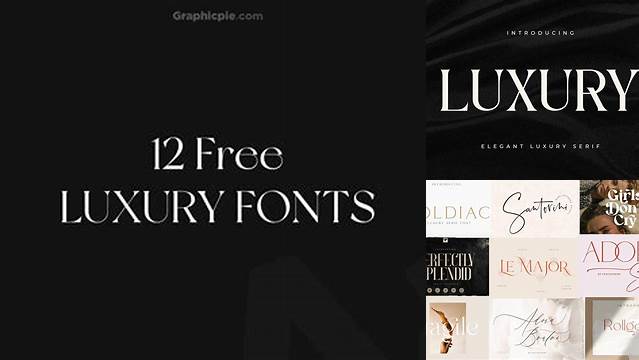
Luxury Fonts: Free Downloads To Elevate Your Brand
Are you looking to elevate your brand's image with the perfect font? Choosing the right font is crucial for luxury brands, as it significantly impacts how your brand is perceived. It's not just about aesthetics; it's about conveying the right message, evoking the desired emotions, and ensuring your brand stands out in a crowded market. The font you select becomes a visual representation of your brand's personality, values, and quality. Think of it as the voice of your brand, speaking silently but powerfully to your target audience. In this guide, we will explore the importance of font selection, delve into the characteristics of luxury fonts, and provide you with a curated list of fonts perfect for luxury brands, including options for free download. We’ll also touch on how to effectively use these fonts across your branding materials to create a cohesive and sophisticated brand identity. So, if you're ready to transform your brand's visual presence, stick around and let's dive into the world of luxury fonts!
The Importance of Font Selection for Luxury Brands
For luxury brands, every detail matters, guys. The font you choose is no exception. Think of your font as the silent ambassador of your brand. It's one of the first things customers notice, and it plays a huge role in shaping their perception of your brand's quality, sophistication, and overall identity. A well-chosen font can communicate elegance, exclusivity, and attention to detail – all hallmarks of a luxury brand. On the other hand, a poorly chosen font can undermine your brand's image, making it appear cheap, generic, or even unprofessional. Imagine a high-end fashion brand using a Comic Sans-esque font – the disconnect would be jarring, right? The font needs to align seamlessly with the overall brand aesthetic, reinforcing the message of luxury and quality. Consider brands like Chanel, which uses classic, clean fonts that reflect its timeless elegance, or Louis Vuitton, with its iconic monogram and sophisticated typography. These fonts aren't just decorative elements; they are integral to the brand's identity. When selecting a font, consider factors like readability, versatility, and its ability to evoke the desired emotions. Does it convey a sense of tradition and heritage, or does it project a more modern, avant-garde feel? The answers to these questions will guide you towards the perfect font that embodies your brand's essence. Ultimately, the right font will not only enhance your brand's visual appeal but also contribute to its long-term success and recognition.
Characteristics of Fonts Used by Luxury Brands
Luxury brand fonts often share several key characteristics. First and foremost, elegance and sophistication are paramount. These fonts typically possess a refined aesthetic, often featuring clean lines, subtle curves, and a sense of timelessness. Think classic serif fonts like Garamond or Didot, which exude a sense of history and prestige. These fonts have a long heritage in the world of print and design, making them a natural choice for brands seeking to convey a sense of tradition and heritage. Secondly, legibility is crucial. While a font might be visually stunning, it needs to be easily readable across various applications, from website headers to print advertisements. A font that is too ornate or stylized can become difficult to decipher, especially in smaller sizes, which can detract from the overall user experience. Luxury brands prioritize clarity and readability to ensure their message is communicated effectively. Thirdly, versatility is another important consideration. A font that works well in a large headline might not be suitable for body text. Luxury brands often require a font family that includes a range of weights and styles, allowing them to maintain consistency across all their branding materials. This versatility ensures that the brand's visual identity remains cohesive, whether it's on a website, in a brochure, or on product packaging. In addition to these practical considerations, luxury brand fonts often have a unique character that sets them apart. This might be a subtle quirk in the letterforms, a particular weight or style, or a historical association with a certain era or design movement. Ultimately, the fonts chosen by luxury brands are more than just decorative elements; they are carefully selected to communicate the brand's values, personality, and commitment to quality. By understanding these key characteristics, you can begin to identify fonts that align with your brand's vision and create a visual identity that resonates with your target audience.
Free Font Options for Luxury Brands
Finding the perfect font for your luxury brand doesn't necessarily mean breaking the bank. There are several fantastic free font options available that can convey the same level of sophistication and elegance as their premium counterparts. One excellent resource is Google Fonts, which offers a vast library of high-quality fonts that are free for commercial use. Among the gems you can find there are fonts like Playfair Display, a classic serif with elegant letterforms that is perfect for headlines and branding materials, and Montserrat, a clean and modern sans-serif that exudes sophistication and works well for body text and logos. Another great option is Bebas Neue, a sleek and modern sans-serif that’s ideal for creating a strong, contemporary look. Font Squirrel is another valuable resource, offering a curated selection of free fonts that are licensed for commercial use. Here, you can discover unique and stylish fonts that will add a touch of luxury to your brand. Dafont is another popular website where you can find thousands of fonts, but be sure to check the licensing carefully, as some fonts are only free for personal use. When exploring free font options, it’s important to consider the font's readability, versatility, and overall aesthetic. Look for fonts that have a range of weights and styles, ensuring you can use them across various applications. Also, pay attention to the font's character and how it aligns with your brand's personality. While free fonts can be a great option, it's essential to ensure they are of high quality and suitable for your brand's needs. Don't be afraid to experiment with different fonts and combinations until you find the perfect match that elevates your brand's visual identity without exceeding your budget. Remember, the goal is to create a cohesive and sophisticated look that resonates with your target audience.
Curated List of Fonts for Luxury Brands
Let's dive into a curated list of fonts that are perfect for luxury brands. We'll explore both premium and free options, giving you a range of choices to consider for your branding needs.
- Garamond: A classic serif font known for its elegance and readability. Garamond exudes a sense of history and sophistication, making it ideal for brands seeking a timeless aesthetic.
- Didot: Another classic serif, Didot is characterized by its high contrast and delicate serifs. It’s a favorite among fashion brands and publications for its refined and stylish appearance.
- Playfair Display: A free option from Google Fonts, Playfair Display is an elegant serif with a touch of modernity. It’s perfect for headlines and titles, adding a touch of luxury to any design.
- Bodoni: This serif font is known for its strong contrast and dramatic flair. Bodoni is a great choice for brands that want to make a bold statement while maintaining a sense of elegance.
- Helvetica: A timeless and versatile sans-serif font, Helvetica is known for its clean lines and readability. It’s a great choice for brands seeking a modern and minimalist aesthetic.
- Futura: Another classic sans-serif, Futura has a geometric design that gives it a sleek and modern look. It’s perfect for brands that want to convey a sense of innovation and forward-thinking.
- Montserrat: A free Google Font, Montserrat is a clean and contemporary sans-serif that exudes sophistication. It’s versatile enough to be used for both headlines and body text.
- Avenir: This sans-serif font has a humanist touch, making it feel both modern and approachable. Avenir is a great choice for brands that want to convey a sense of warmth and sophistication.
Script Fonts
- Great Vibes: A beautiful script font that adds a touch of elegance and romance to any design. Great Vibes is perfect for invitations, logos, and other branding materials.
- Allura: Another elegant script font, Allura has a flowing and graceful design. It’s ideal for brands that want to convey a sense of luxury and sophistication.
When selecting fonts for your luxury brand, consider how they will work together. It’s often best to pair a serif font with a sans-serif font to create a balanced and visually appealing design. Experiment with different combinations and see what works best for your brand's unique personality and style. Remember, the goal is to create a cohesive and sophisticated visual identity that resonates with your target audience.
How to Use Fonts Effectively in Luxury Branding
Okay, so you've chosen your luxury fonts – fantastic! But the work doesn't stop there. How you use these fonts is just as important as the fonts themselves. It’s all about creating a cohesive and impactful brand identity. First and foremost, consistency is key. Stick to a limited number of fonts (ideally two or three) across all your branding materials. This creates a sense of visual harmony and makes your brand instantly recognizable. Think about brands like Tiffany & Co., whose elegant typography is consistently applied across its packaging, website, and marketing materials. This consistency reinforces the brand's image of luxury and sophistication. Secondly, hierarchy is crucial. Use different font sizes and weights to create a clear visual hierarchy. Headlines should be bold and attention-grabbing, while body text should be legible and easy to read. This helps guide the viewer's eye and ensures that your message is communicated effectively. Consider using a serif font for headlines to convey a sense of tradition and elegance, and a sans-serif font for body text to ensure readability. Thirdly, white space is your friend. Don't overcrowd your designs with text. Give your fonts room to breathe, allowing them to make a statement without feeling cluttered. White space adds a touch of elegance and sophistication, which is essential for luxury brands. In addition to these technical considerations, think about the emotional impact of your fonts. Do they convey the right message? Do they align with your brand's values and personality? A font that feels too playful or casual might not be suitable for a high-end brand. Finally, always test your fonts across different platforms and devices to ensure they look good in every context. What looks great on your computer screen might not translate well to a mobile device or a printed brochure. By paying attention to these details, you can ensure that your fonts are working effectively to enhance your brand's image and communicate its message of luxury and quality. Remember, it’s about creating a visual experience that resonates with your target audience and leaves a lasting impression.
Choosing the right fonts for your luxury brand is a critical step in building a strong and recognizable visual identity. The fonts you select become a visual representation of your brand's personality, values, and quality. By understanding the characteristics of luxury fonts, exploring free and premium options, and learning how to use fonts effectively, you can create a brand aesthetic that exudes elegance, sophistication, and exclusivity. Remember, it's not just about choosing a pretty font; it's about selecting a font that communicates your brand's message and resonates with your target audience. Consistency, hierarchy, and white space are your allies in creating a cohesive and impactful design. So, whether you opt for a classic serif like Garamond, a modern sans-serif like Montserrat, or a script font like Great Vibes, make sure your fonts are working together to tell your brand's story. The world of typography is vast and exciting, so don't be afraid to experiment and explore until you find the perfect fonts that elevate your brand to new heights. With careful consideration and attention to detail, you can create a visual identity that not only looks luxurious but also effectively communicates the essence of your brand. Now go forth and create some typographic magic!